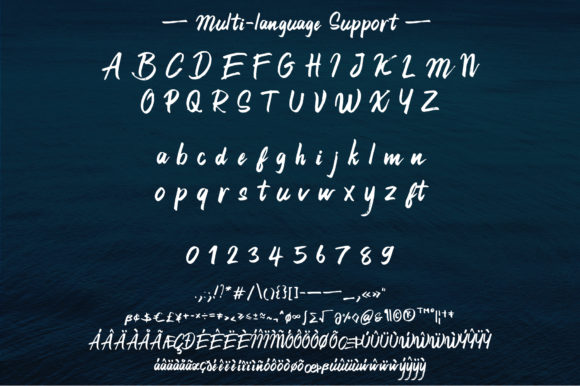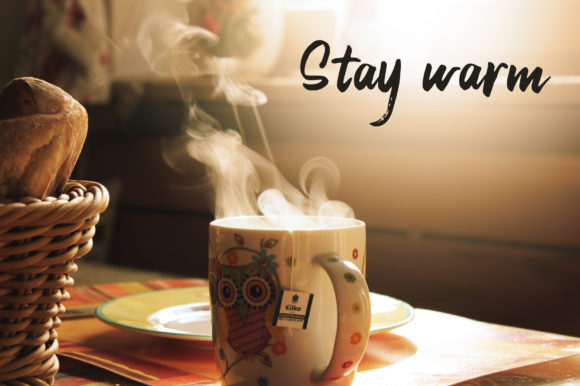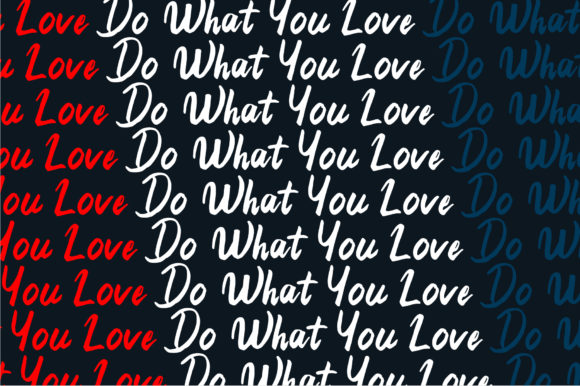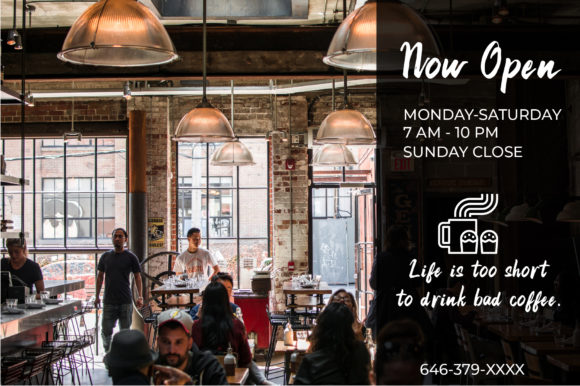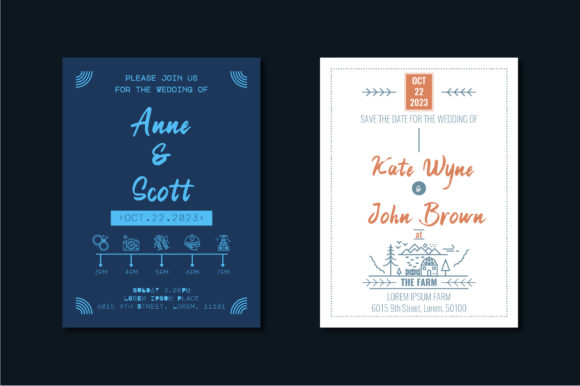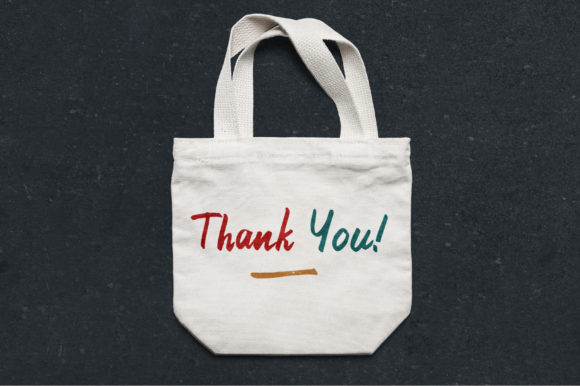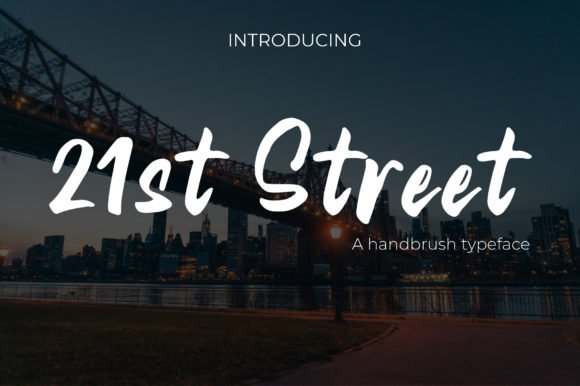
Unleashing Your Creativity with the 21st Street Font
Have you ever stared at a blank canvas, searching for the perfect spark to ignite your design project? It’s that moment when you’re not just looking for a font, but a feeling – a vibe that sets your creation apart from the rest. That’s where the 21st Street Font comes in, a sweet handwritten font that brings an undeniable charm to any design.
This font is more than just a typographic choice; it’s a statement piece that adds a touch of personality to your work. Whether you’re designing a logo, a marketing campaign, or a simple greeting card, the 21st Street Font is the perfect companion to help you express your unique voice. Its versatility and elegance make it a valuable asset for designers, allowing them to elevate their projects and leave a lasting impression.
21st Street Font Key Features
- Font Family: 21st Street Font is a unique, hand-drawn font designed to evoke a sense of nostalgia and elegance.
- Unique Characteristics: Features a distinctive, hand-drawn aesthetic with subtle imperfections, giving it a human touch and adding character to designs.
Designer Review: 21st Street Font
Overall, I think the 21st Street Font has some great qualities that make it suitable for certain design projects, but it’s not without its limitations. Let’s dive in and explore what works well and what could be improved.
- ✨ Friendly and approachable vibe: The 21st Street Font has a warm and inviting feel that makes it perfect for use in headings, titles, and body text.
- ✨ Clear and legible: The font is well-designed for reading, making it easy to follow even at smaller font sizes.
- ✨ Versatile: The 21st Street Font can be used in a variety of contexts, from modern and minimalist to more traditional and classic designs.
- ⚠️ Limited flexibility: The font doesn’t have a lot of weight variations, which can make it less suitable for complex layouts or designs that require a lot of font size changes.
- ⚠️ May not be ideal for small text: While the font is clear and legible, it may not be the best choice for very small text sizes, as the characters can become difficult to distinguish.
Overall, I think the 21st Street Font is a solid choice for designers who want a friendly and approachable font that’s easy to read. However, it may not be the best fit for projects that require a lot of font size changes or very small text sizes. With a little caution and consideration, though, the 21st Street Font can be a great addition to any design project.
Getting the Most Out of the 21st Street Font
To get the most out of the 21st Street font, use it for:
- Headlines and titles: The 21st Street font is perfect for adding a touch of sophistication to your headlines and titles.
- Quote graphics: Use the 21st Street font to create visually appealing quote graphics.
- Branding materials: The 21st Street font can be used to create a consistent brand identity across your marketing materials.
The 21st Street font is commonly used for:
- Branding materials for creative agencies
- Quote graphics and inspirational quotes